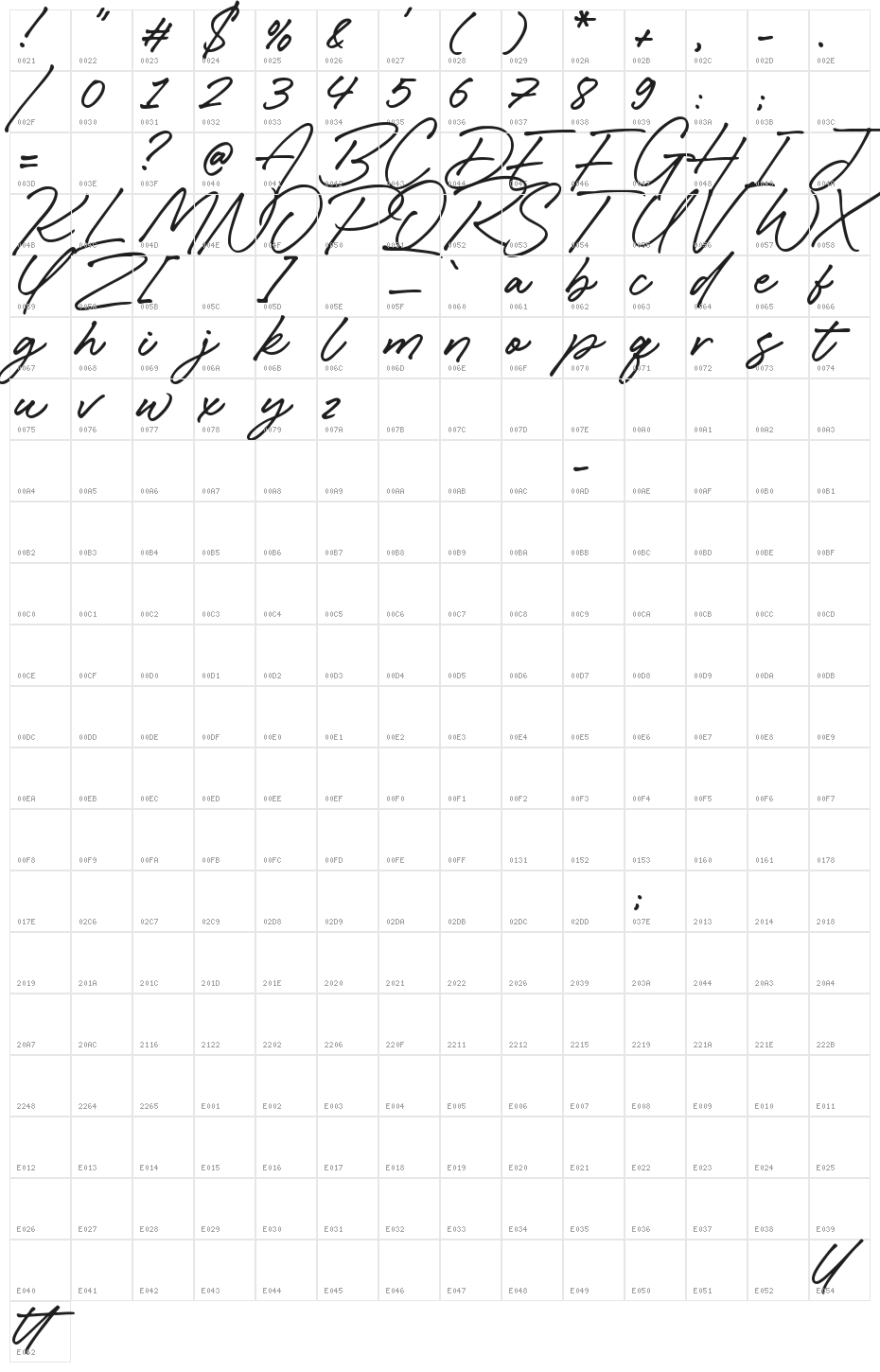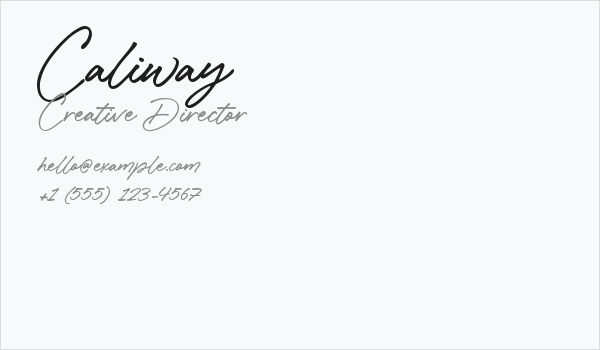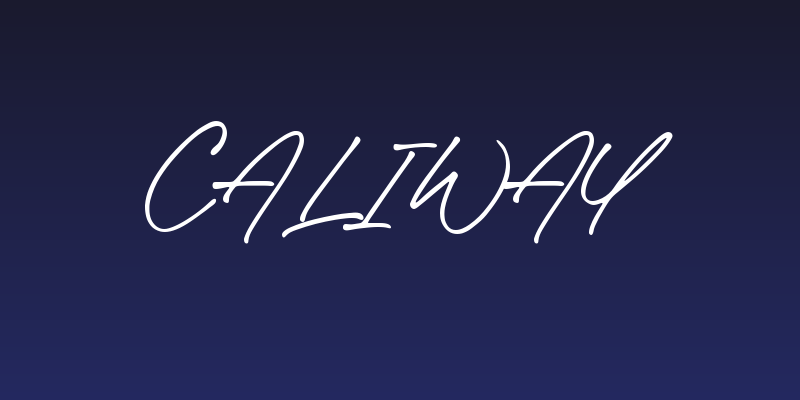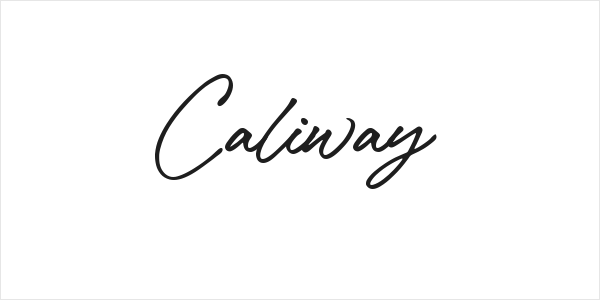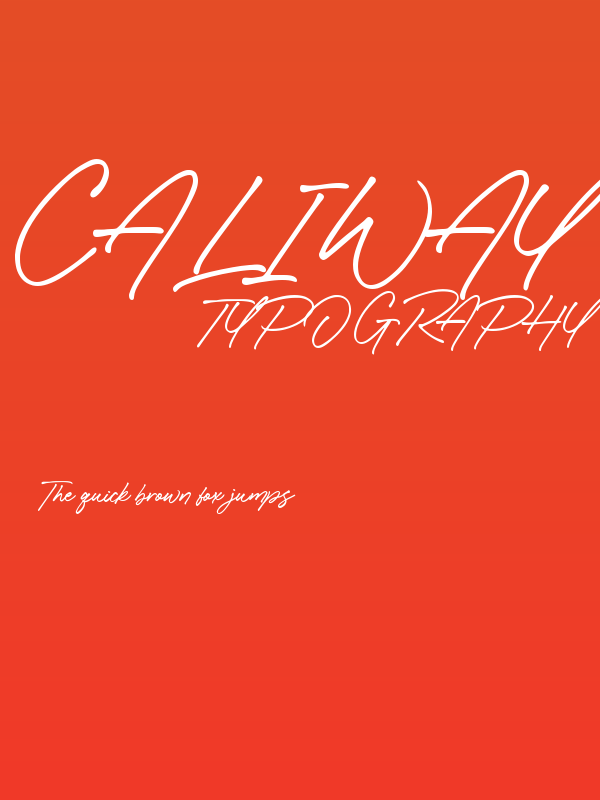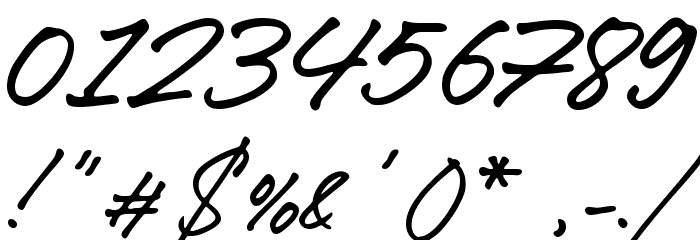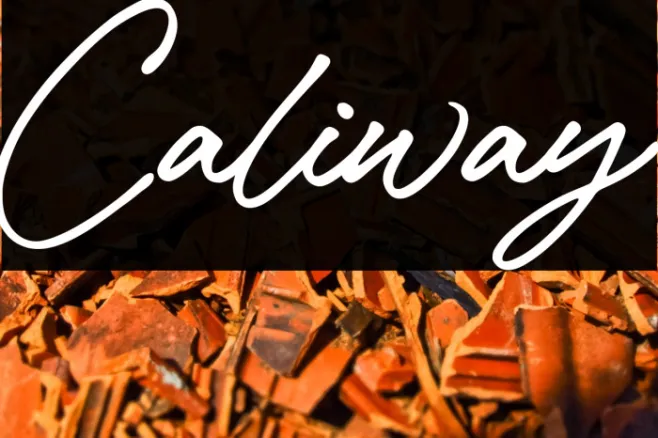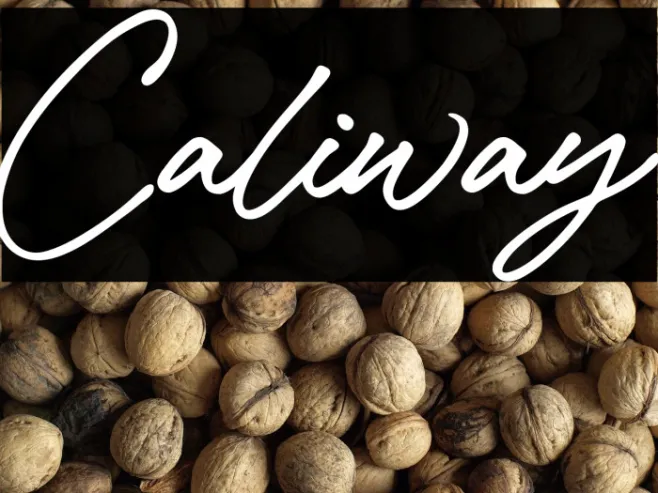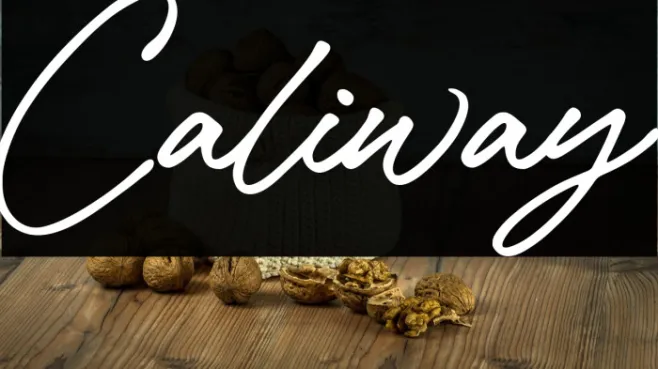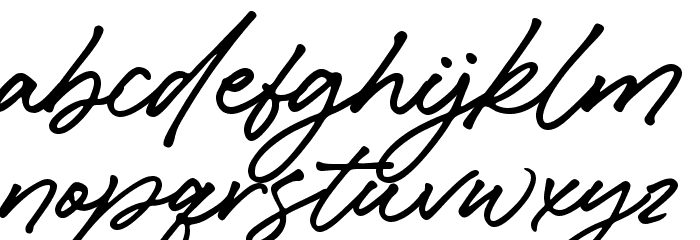
Caliway Font
Caliway Description
This font features a dynamic and fluid script style, characterized by its elegant and flowing cursive letters. The uppercase letters are slightly slanted, giving a sense of motion and grace, while the lowercase letters maintain a consistent and harmonious flow. The numerals are bold and clear, ensuring readability. Special characters are creatively integrated, adding a touch of sophistication. The overall design is reminiscent of handwritten calligraphy, making it suitable for projects that require a personal and artistic touch.